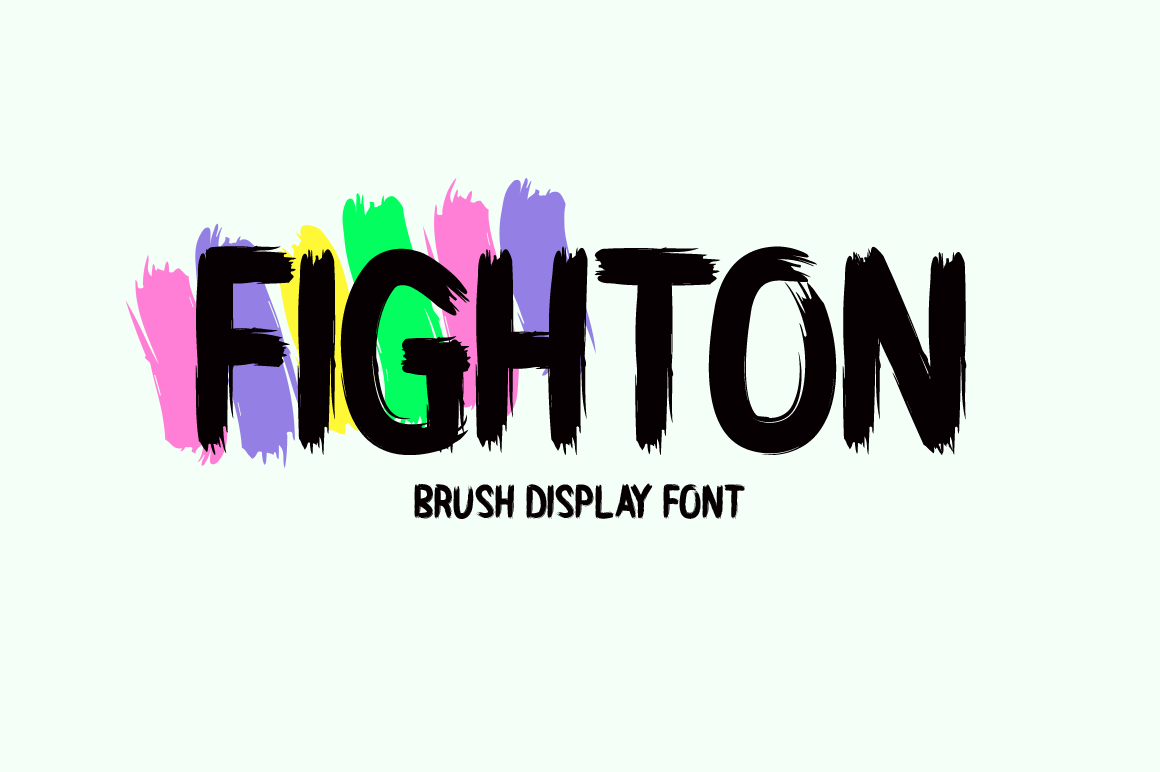
Fighton Typeface
Introducing Fighton!
Fighton is a vibrant brush-style display font that brings a fresh, artistic flair to your designs. It's ideal for a wide range of uses, including stationery, logos, t-shirts, paper products, print media, website headers, photo frames, flyers, music covers, posters, image sliders, and more.
Includes a range of multilingual support